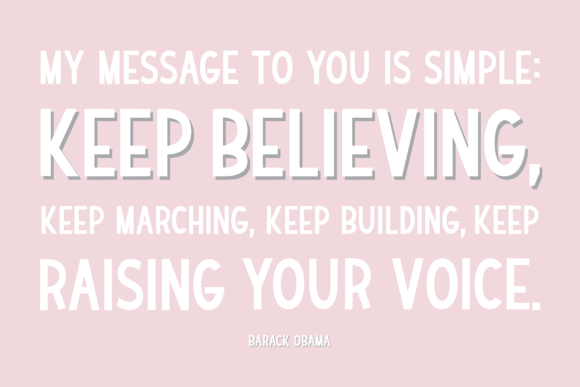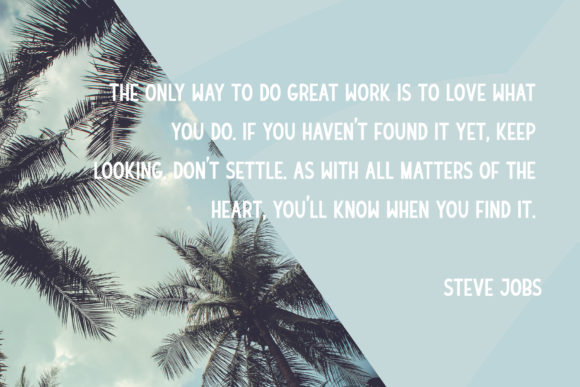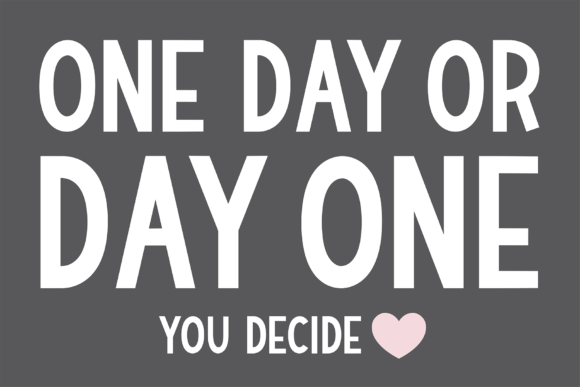
Okra Sans Font
About the Okra Sans Font
Unleash your creativity with Okra Sans Font, a versatile font perfect for a wide range of applications. Okra Sans is a simple and bold sans serif font. It features a smooth and neat style, adding a unique touch to each of your creations!
Its strong, confident forms make Okra Sans ideal for headlines, logos, and short, impactful text on posters or branding materials. It’s equally effective in packaging design, particularly for products projecting a modern and bold image. However, its boldness isn’t suited to body text or long paragraphs; the weight can strain readability over extended use. Avoid employing it in UI contexts where legibility is paramount.
Okra Sans possesses a friendly yet assertive personality. To complement this, consider pairing it with a clean, geometric sans-serif like Montserrat for a contemporary feel, or a classic serif like Garamond for a touch of sophistication that contrasts its boldness. A playful script font such as Pacifico could also create an interesting juxtaposition for specific applications, depending on the desired overall mood.
The font’s inherent boldness makes it particularly well-suited to brands focused on strength, innovation, and confidence. Think tech startups, athletic apparel, or products emphasizing durability and quality.
Okra Sans Font Usage Examples
Okra Sans Font Example